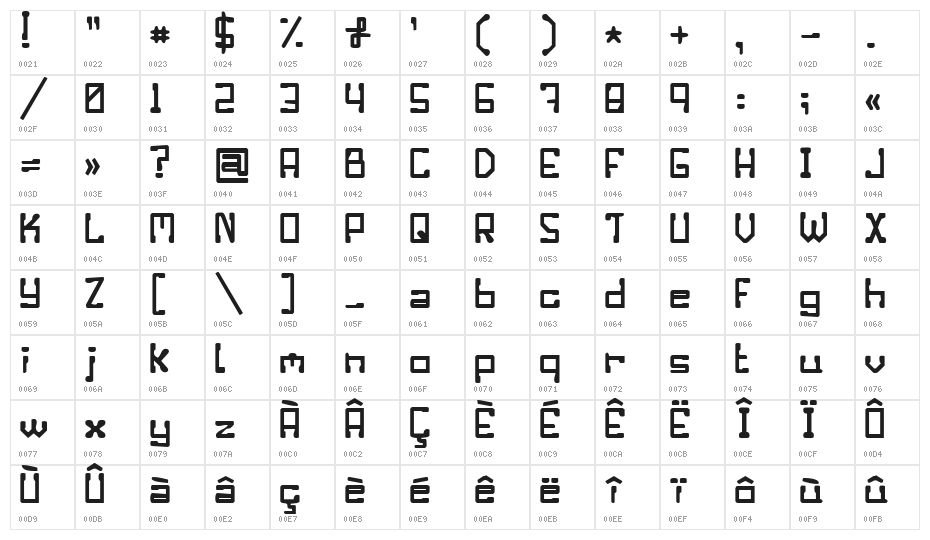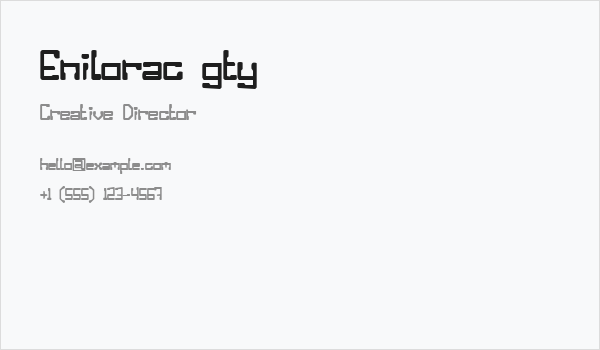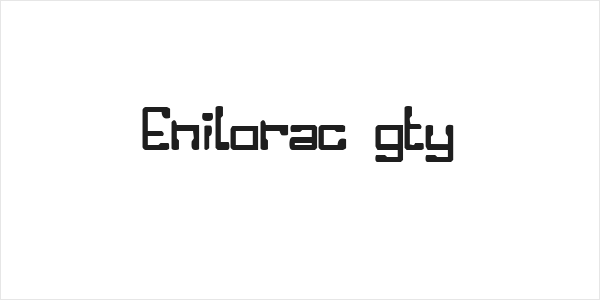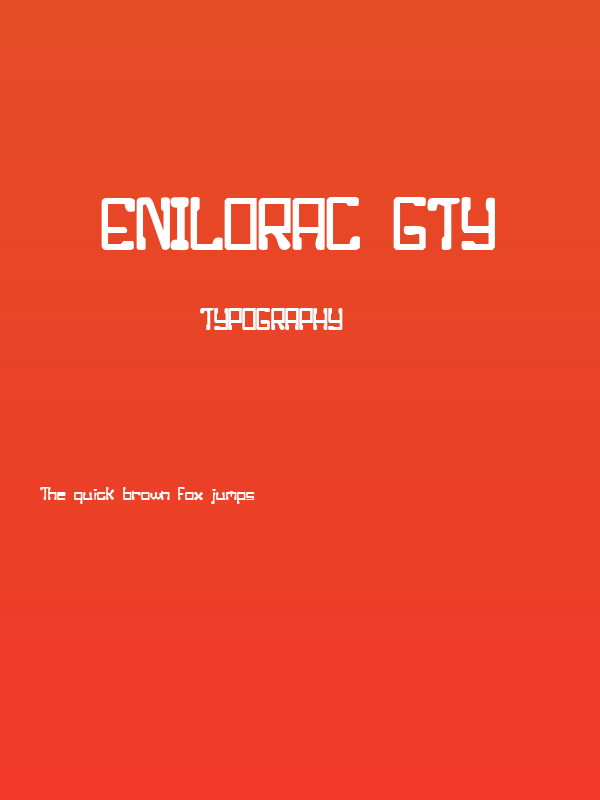
Enilorac gty Font
Enilorac gty Description
This font features a bold, geometric style with a modern and futuristic aesthetic. The characters are constructed with thick, uniform strokes that create a strong visual impact. The design incorporates angular shapes and sharp edges, giving it a distinctive and edgy appearance. The uppercase and lowercase letters maintain a consistent height, contributing to a cohesive look. Numbers and special characters follow the same design principles, ensuring uniformity across all elements. This font's unique style makes it suitable for projects that require a contemporary and bold statement.
| Proposed Projects | Ideal for branding, posters, digital media, and any project needing a strong, modern aesthetic. |